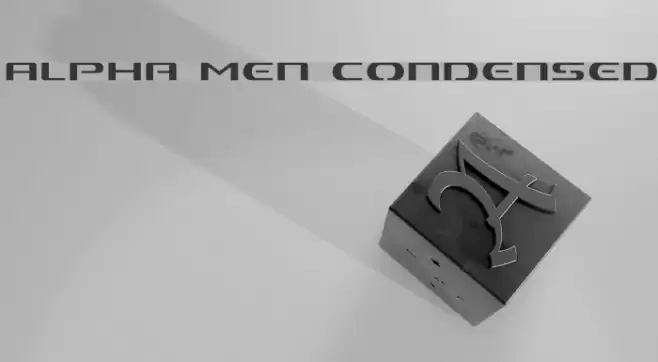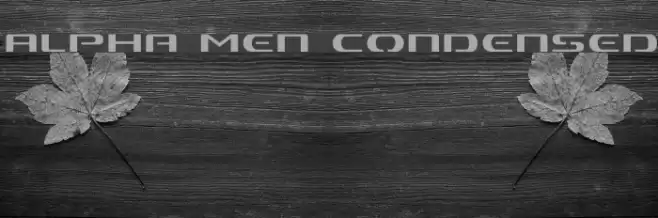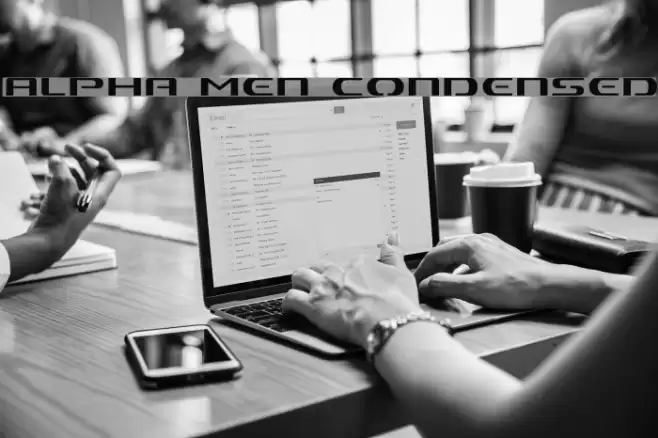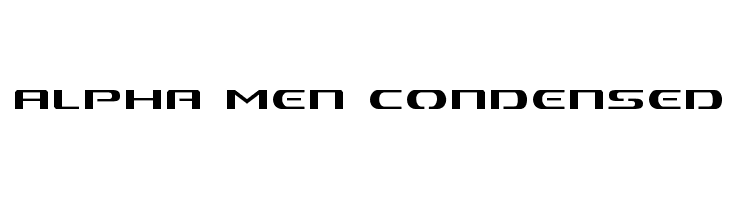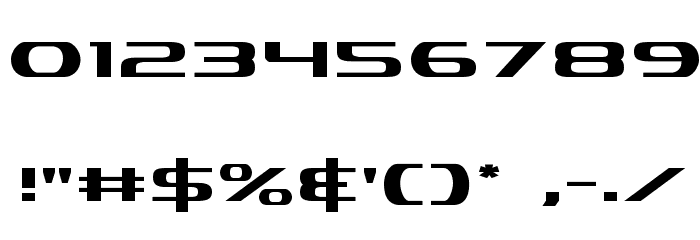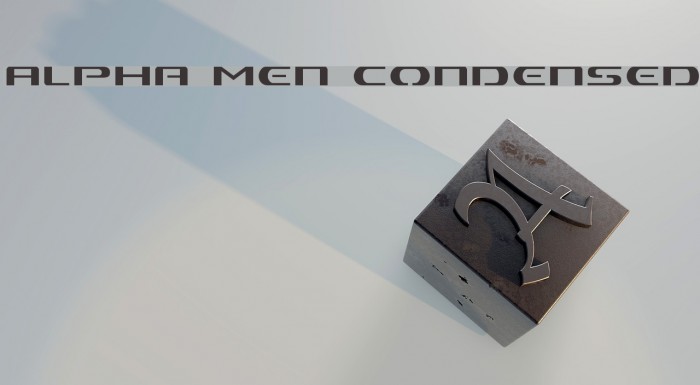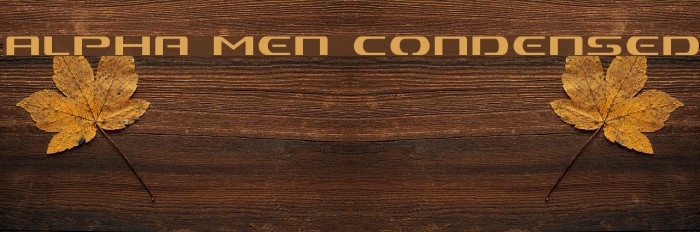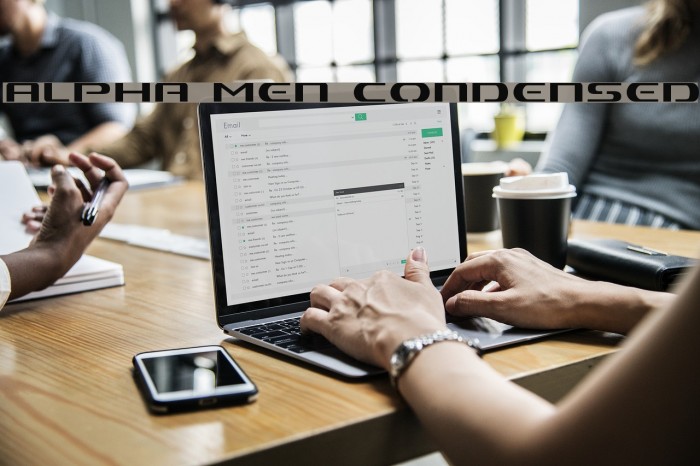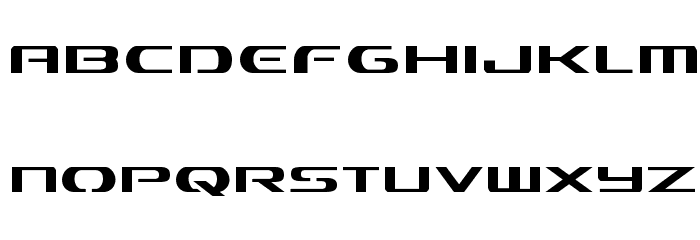
Alpha Men Condensed Font
Alpha Men Condensed Description
This font features a futuristic and geometric design with a condensed structure, making it ideal for modern and tech-oriented projects. The characters are bold and uniform, with a consistent stroke width that provides a strong visual impact. The angular and sharp edges give it a dynamic and sleek appearance, suitable for conveying a sense of innovation and forward-thinking. The uppercase and lowercase letters maintain a cohesive style, while the numerals and special characters complement the overall aesthetic. Its condensed form allows for efficient use of space, making it perfect for headlines and titles where space is limited.
A futuristic, geometric font with a bold, condensed style from Uncategorized fonts.
- Proposed Projects: Ideal for tech branding, sci-fi posters, video game titles, and modern advertising.